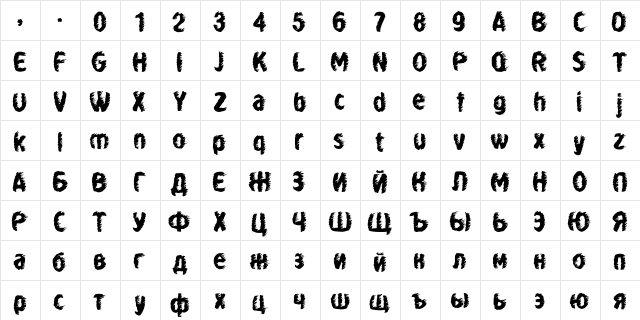
Whirl Cyrillic Regular
Design Context for Whirl Cyrillic Typeface
Whirl Cyrillic is a composed and adaptable typeface that performs quietly and consistently across a wide range of design contexts.